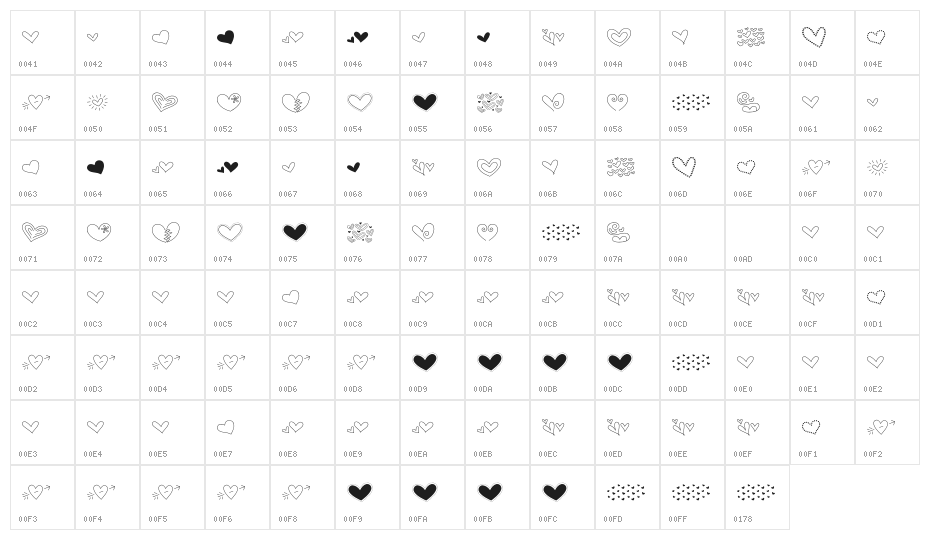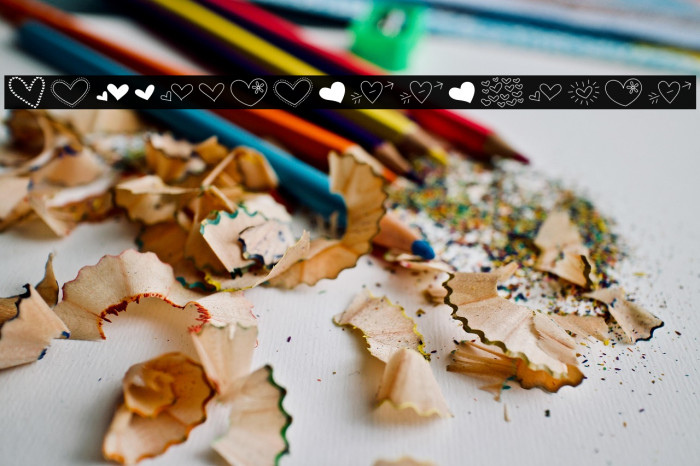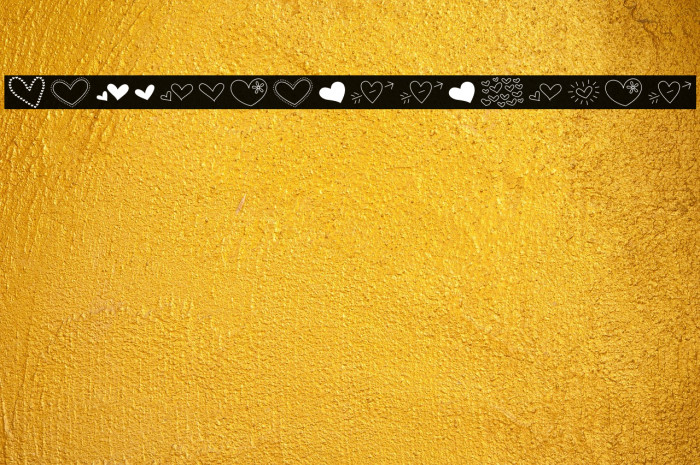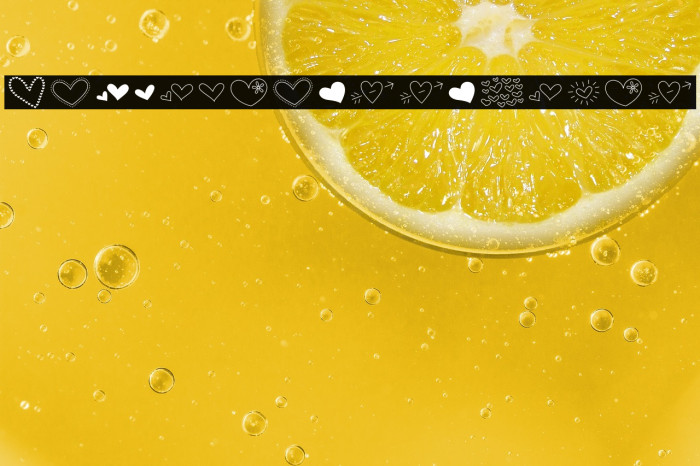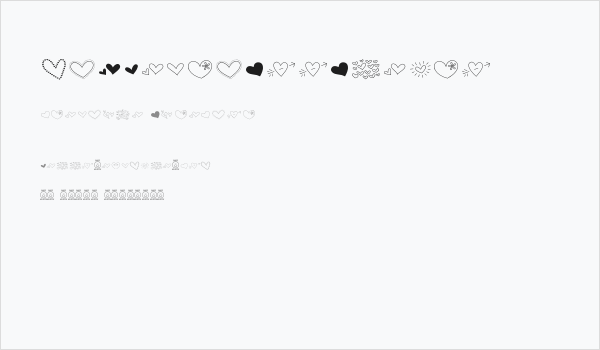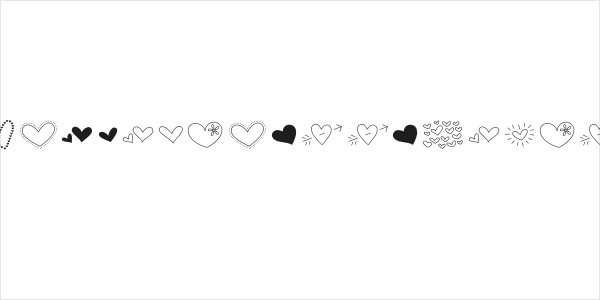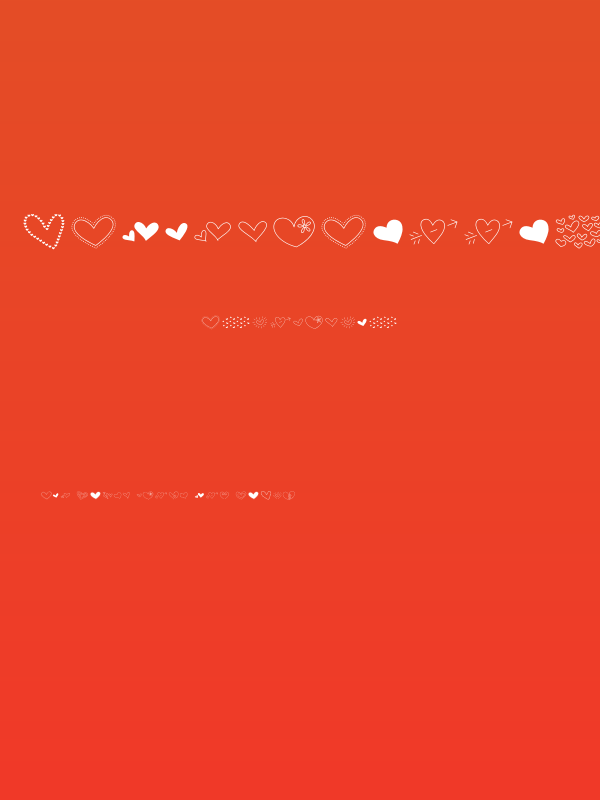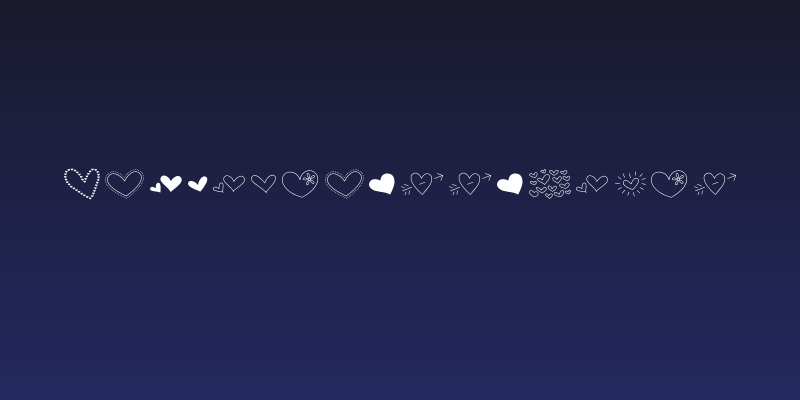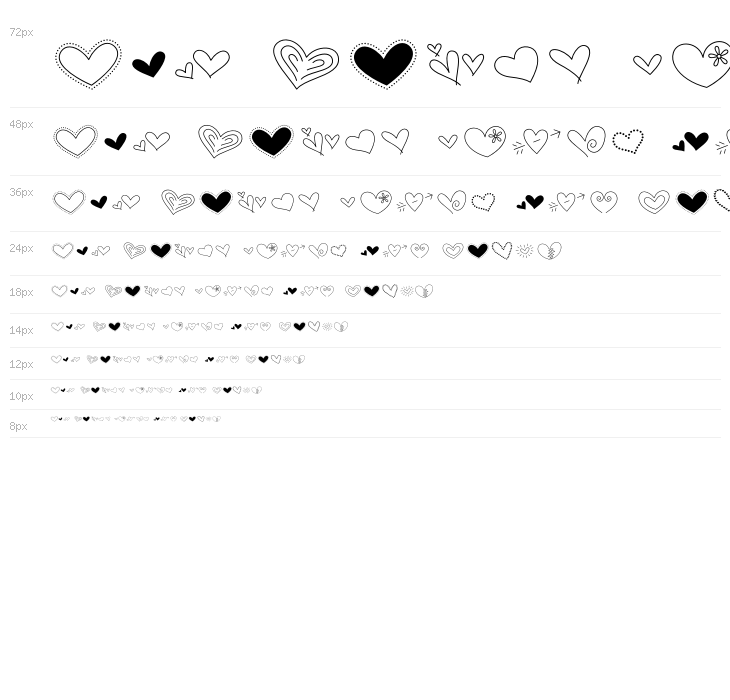
MTFHeartDoodlePro Font
MTFHeartDoodlePro Description
This collection features a playful and whimsical assortment of heart-themed doodles. Each character is uniquely designed with variations in size, fill, and outline, creating a dynamic and lively appearance. The designs range from solid black hearts to outlined and patterned hearts, some with additional elements like arrows or sun motifs. The style is informal and hand-drawn, evoking a sense of fun and creativity. These doodles are perfect for adding a touch of charm and personality to any project. The absence of traditional alphanumeric characters emphasizes its decorative nature.
| Use Case | Logos, Decorative elements |
| Proposed Projects | Ideal for greeting cards, scrapbooking, digital stickers, and playful graphic design projects. |